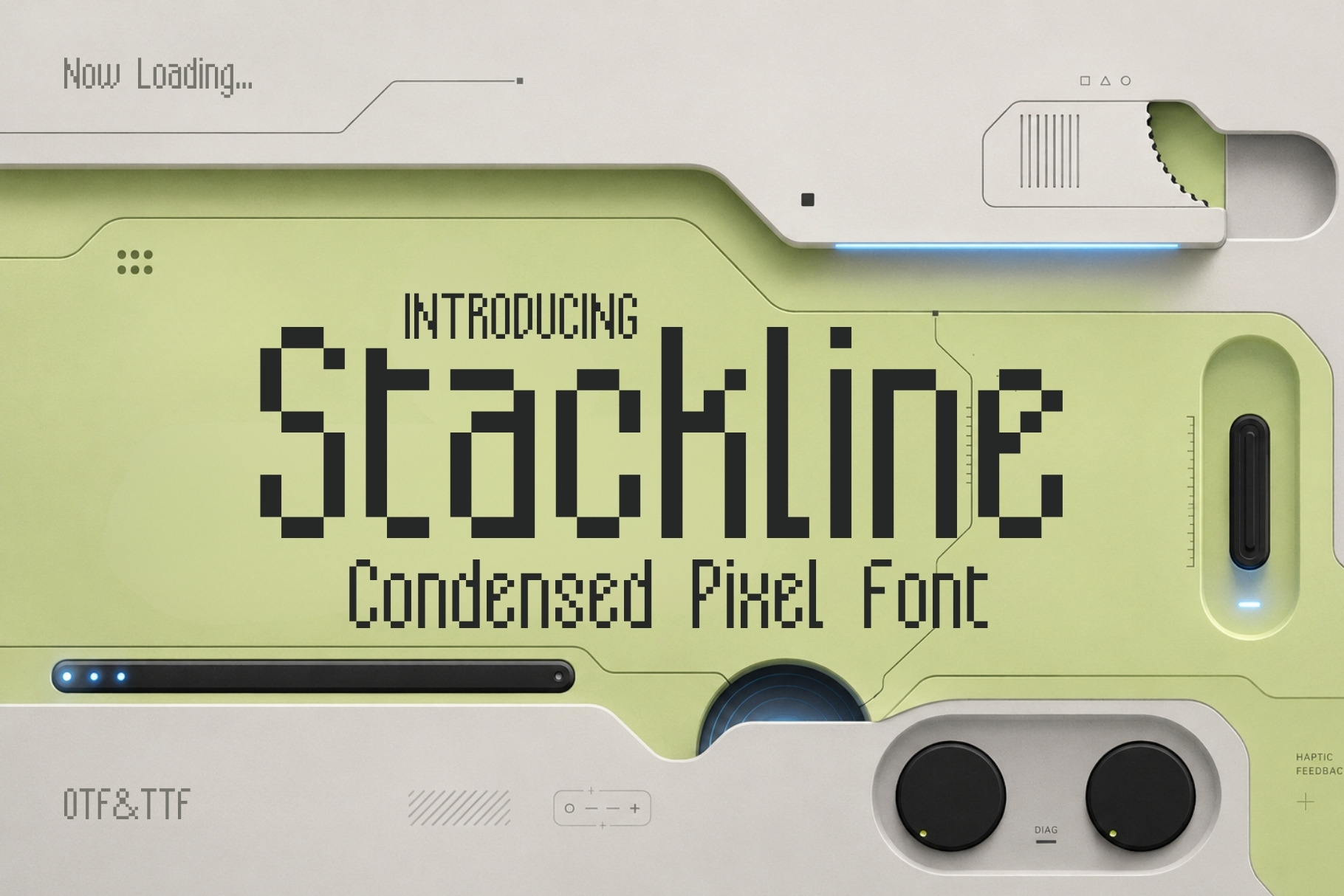
Stackline - Condensed Pixel Font
Build bold ideas inside a smaller footprint with Stackline, a condensed 8-bit pixel font created for technology brands, digital products, artificial intelligence projects, software companies, and forward-thinking startups.
Stackline combines the precision of classic bitmap typography with tall, tightly spaced letterforms that feel streamlined, efficient, and unmistakably modern. Its narrow proportions allow you to fit more information into compact layouts while maintaining a strong, distinctive presence—making it especially effective for headlines, interfaces, logos, product names, and attention-grabbing promotional graphics.
Inspired by early computer terminals, programming environments, digital dashboards, and retro-futuristic technology, Stackline carries the nostalgic character of pixel lettering into a clean contemporary setting. It can feel technical and intelligent, energetic and experimental, or sleek and futuristic depending on how it is used.
Stackline is ideal for AI platforms, SaaS companies, mobile applications, developer tools, gaming interfaces, cybersecurity brands, fintech products, robotics projects, technology conferences, startup pitch decks, digital posters, merchandise, packaging, and social media campaigns.
Whether you are launching the next breakthrough application, designing a fictional operating system, creating an arcade-inspired brand, or giving a technology project a memorable visual identity, Stackline delivers compact power with unmistakable digital character.